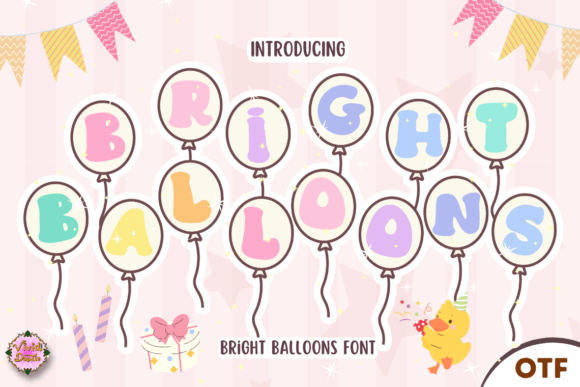
Bright Balloons: The Ultimate Typeface for Celebratory Design
Designing for children, educational environments, or festive events often presents a unique challenge: how to convey excitement and joy without overwhelming the viewer. Many creators struggle to find typography that balances legibility with a sense of whimsy. Standard playful fonts can sometimes feel generic or cluttered, while overly serious typefaces fail to capture the spirit of childhood wonder. This is where Bright Balloons steps in as a transformative solution. More than just a collection of letters, this vibrant and playful typeface is engineered to turn ordinary text into a visual celebration, making it an essential tool for anyone looking to inject energy into their creative projects.
Understanding the Essence of Bright Balloons
Bright Balloons is a uniquely crafted font designed specifically to evoke the feeling of a party, a classroom adventure, or a moment of pure delight. Each character in the alphabet is adorned with whimsical balloon designs, integrating colorful elements directly into the structure of the letters. Unlike standard display fonts that rely on simple curves or bold strokes, this typeface incorporates thematic illustrations that make every word pop with personality.
The design philosophy behind Bright Balloons centers on the idea that typography should be an active participant in storytelling. When you use this font, you are not merely presenting information; you are setting a mood. The seamless blend of fun aesthetics and colorful, celebratory design ensures that the text itself becomes part of the artwork. Whether used for a single headline or a short phrase, the font creates an immediate emotional connection with the audience, signaling that what follows is meant to be enjoyed.
Solving Common Design Challenges
Adults tasked with creating materials for kids or back-to-school campaigns often face specific hurdles. One common issue is the "generic" look. Using standard clip art paired with basic sans-serif fonts can result in designs that feel flat and uninspired. Another challenge is maintaining readability while adding decorative elements. Many novelty fonts sacrifice clarity for style, making them difficult to read at smaller sizes or from a distance.
Bright Balloons addresses these pain points by offering a balance between decoration and function. The balloon motifs are integrated thoughtfully, ensuring they enhance the letterforms rather than obscure them. This allows designers to create visually engaging content that remains accessible. For parents organizing birthday parties, teachers preparing classroom decorations, or small business owners launching kid-friendly products, this font eliminates the need to search for multiple assets to achieve a cohesive look. It provides a ready-made aesthetic that feels polished and professional yet undeniably fun.
Practical Applications for Every Creator
The versatility of Bright Balloons makes it suitable for a wide range of practical applications. Its ability to transform creations into a celebration of childhood and creativity means it can be adapted across various mediums, from digital screens to physical crafts.
Educational and Back-to-School Materials
For educators and parents, the transition back to school can be daunting for young learners. Creating welcoming environments is crucial for reducing anxiety and fostering enthusiasm. Bright Balloons is perfect for crafting name tags, welcome signs, and bulletin board headers. The lively allure of the font turns a standard classroom notice into an invitation to learn. Teachers can use it for spelling practice sheets, reward certificates, or daily schedule boards, making the learning process feel like an adventure rather than a chore.
Festive Events and Party Planning
Birthday parties, baby showers, and community festivals require signage that matches the celebratory atmosphere. Using Bright Balloons for invitations, banners, and cupcake toppers ensures consistency in your event branding. Because each letter is already adorned with balloon designs, you save time on manual decoration. You can focus on the logistics of the event while the typography handles the festive vibe. This is particularly useful for DIY planners who want high-end results without hiring a professional graphic designer.
Merchandise and Apparel
Small business owners and crafters often seek ways to differentiate their products in a crowded market. T-shirts, tote bags, and water bottles featuring the Bright Balloons font stand out immediately due to their colorful and dynamic nature. The font's playful nature makes it ideal for merchandise targeting families, schools, and youth organizations. When applied to fabric or paper goods, the design adds a tactile sense of joy that resonates with customers looking for cheerful, uplifting items.
Tailoring the Font to Your Specific Needs
Different users will approach the implementation of Bright Balloons based on their specific goals and technical comfort levels. Understanding these variations can help maximize the font's potential.
- The DIY Enthusiast: For those working on home crafts, scrapbooking, or personal gifts, the font serves as a quick way to elevate handmade projects. By printing text in Bright Balloons and cutting it out for collages or using it as a stencil for painting, hobbyists can achieve professional-looking results with minimal effort.
Conclusion
In a world where visual communication is key, finding the right tool to express joy and creativity is invaluable. Bright Balloons offers more than just a style; it offers a solution for those seeking to bring light and fun to their projects. Whether you are designing a T-shirt for a child's first day of school, creating a banner for a neighborhood festival, or simply looking to add a touch of magic to a DIY craft, this typeface delivers. By seamlessly blending a fun aesthetic with a colorful design, it transforms every project into a visually engaging experience. Embrace the lively allure of Bright Balloons and watch as your creations come alive, celebrating the endless possibilities of childhood and imagination.